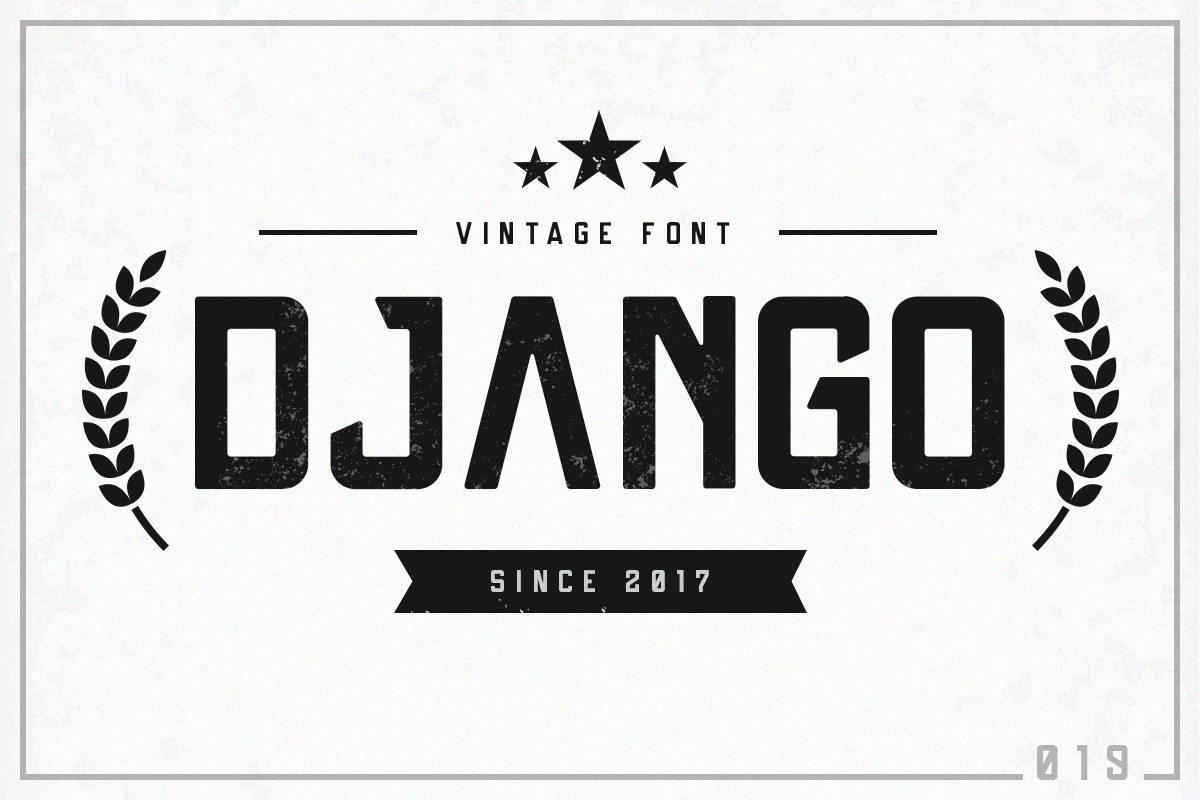
Django Vintage Font
Django is a fun and vintage font, to simulate your lovely design. Perfect for many different projects: quotes, blog header, poster, wedding, branding, logo, fashion, apparel, letter, invitation, stationery, etc.